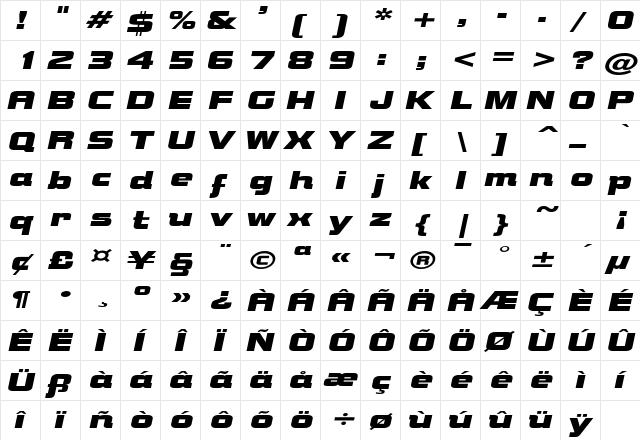
NutsExtended Oblique
Design Context for NutsExtended Typeface
NutsExtended takes a measured approach to typography — its balanced proportions and neutral character make it a reliable workhorse for both digital and print work. Its italic angle brings a sense of urgency and motion to the letterforms.
Pro Tip: Try NutsExtended for annotation and caption copy alongside an upright companion — the contrast in angle creates a dynamic but ordered typographic system.